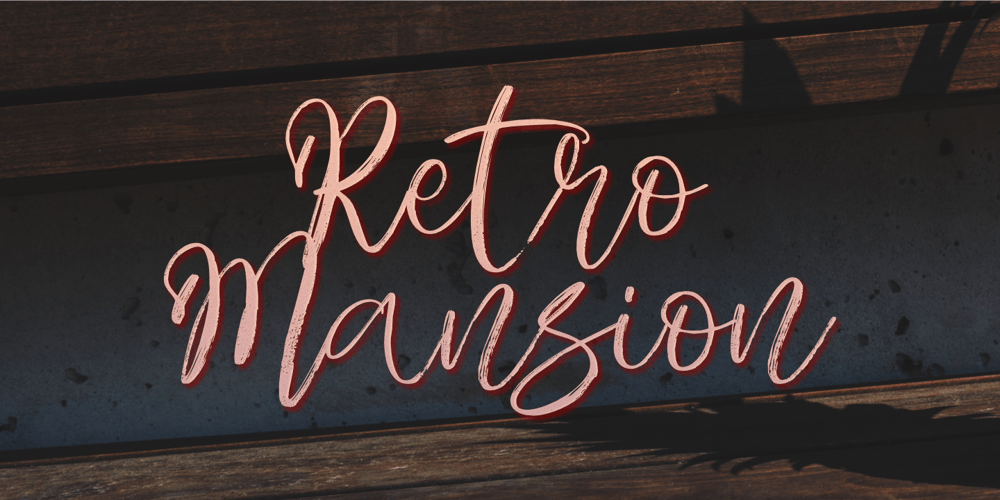
Retro Mansion
Retro Mansion font
Retro Mansion Font Family was designed by Aldy Sidik and published by Olivetype. Retro Mansion contains 1 styles and family package options. Retro Mansion is a casual dry brush font that is suited for retro style logo and poster. So what’s included: Basic Latin A-Z & a-z. Numbers, symbols, punctuations and ligatures. Multilingual Support. Accented Characters : ÀÁÂÃÄÅÆÇÈÉÊËÌÍÎÏÑÒÓÔÕÖØŒŠÙÚÛÜŸÝŽàáâãäåæçèéêëìíîïñòóôõöøœšùúûüýÿžß Thank You.